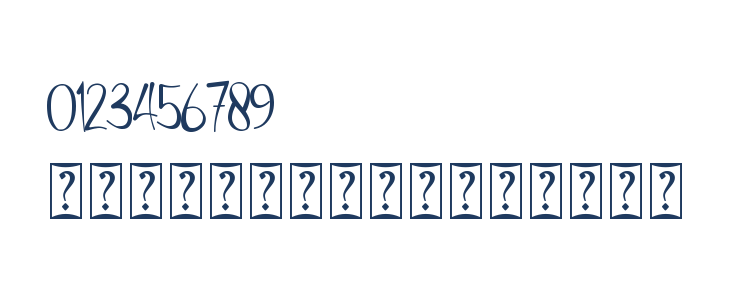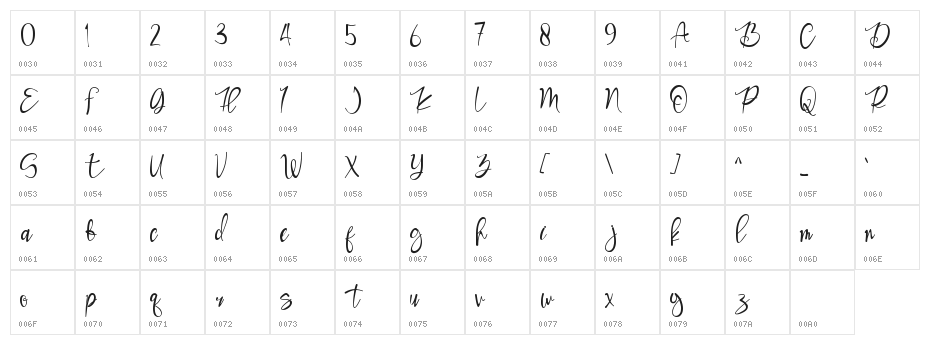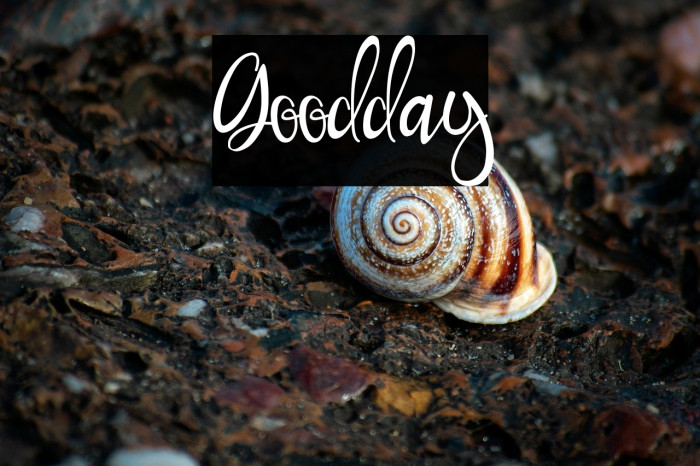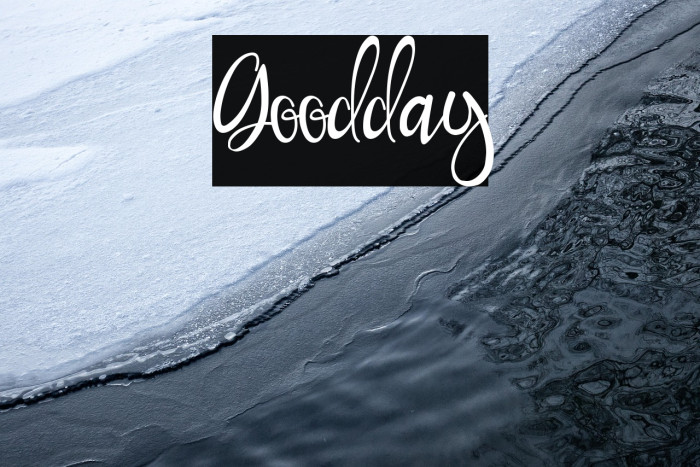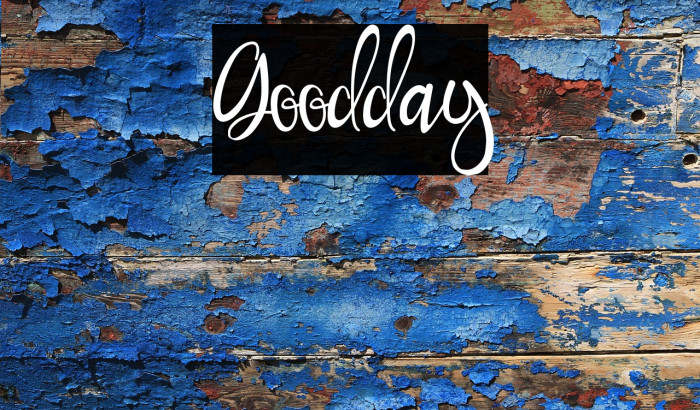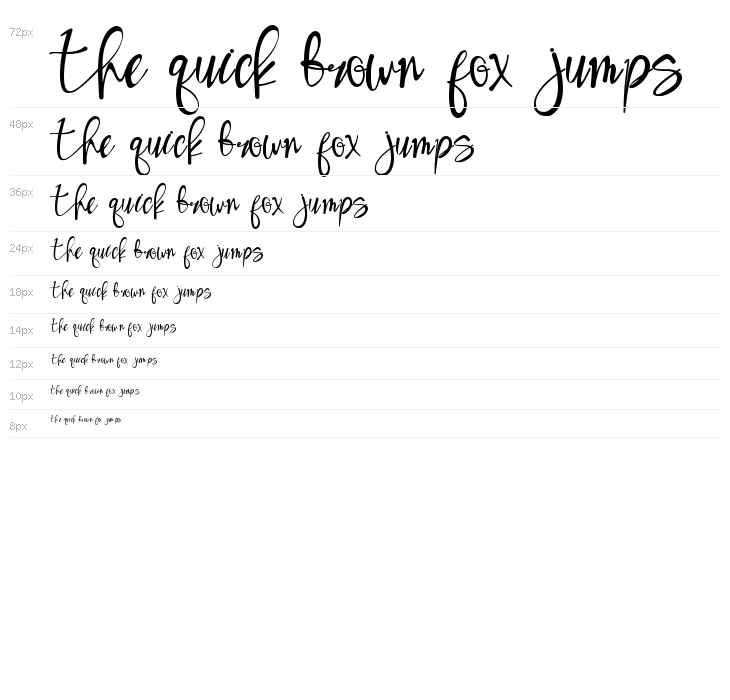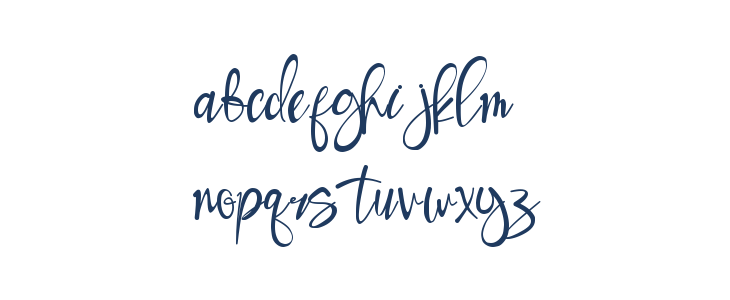
Goodday Font
Goodday Description
This font features an elegant and flowing script style, characterized by its cursive and interconnected letterforms. The uppercase letters are bold and dynamic, with sweeping curves and loops that convey a sense of movement and grace. The lowercase letters maintain a consistent style, with smooth transitions and a slightly more compact form. Numbers are designed to match the overall aesthetic, with a playful yet sophisticated appearance. Special characters are seamlessly integrated, enhancing the font's versatility. This font exudes a sense of elegance and creativity, making it suitable for a variety of design projects.
| Overall Style | Elegant, Decorative |
| Use Case | Logos, Invitations, Decorative Text |
| Proposed Projects | Ideal for wedding invitations, branding, greeting cards, and elegant packaging designs. |